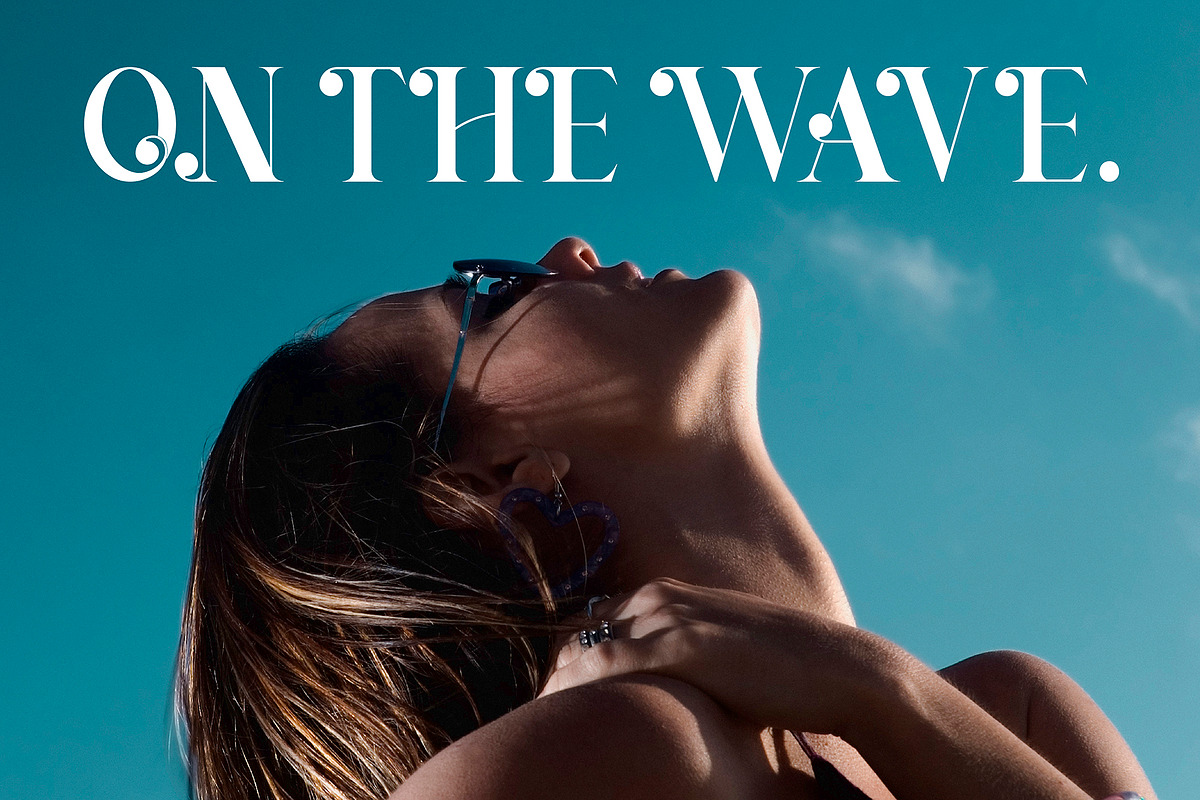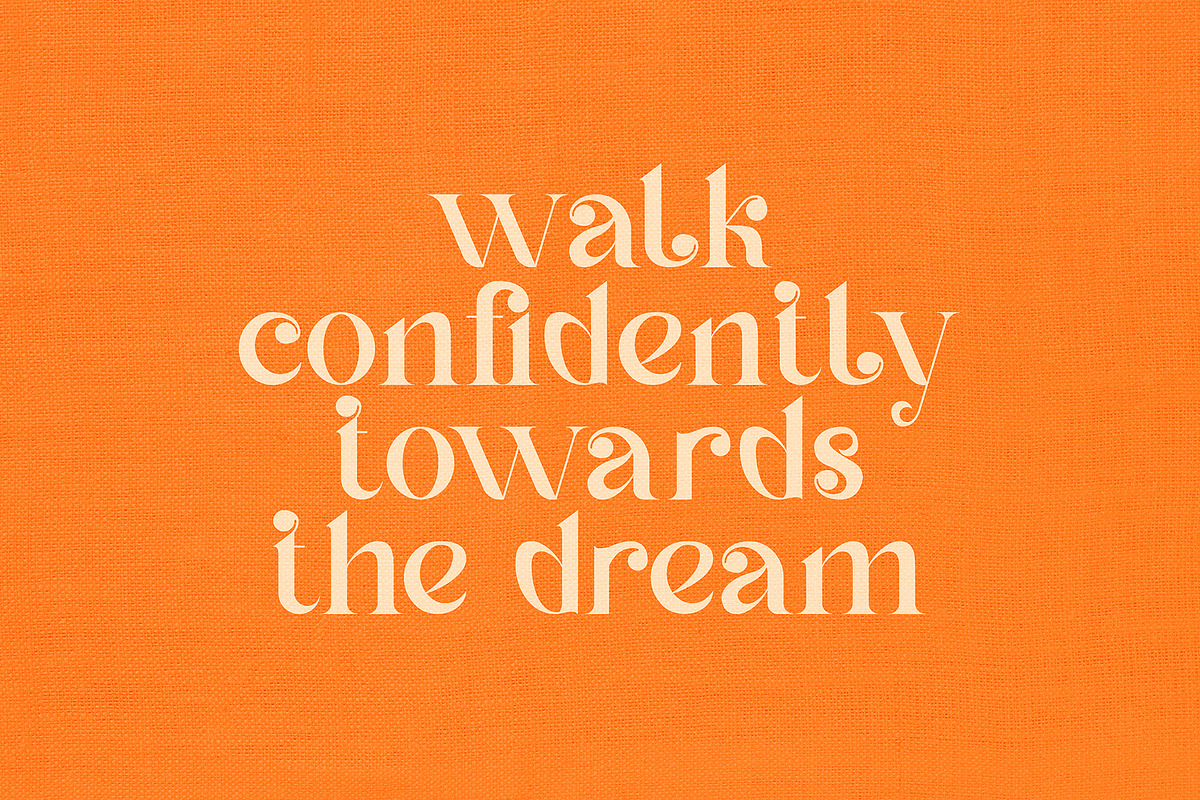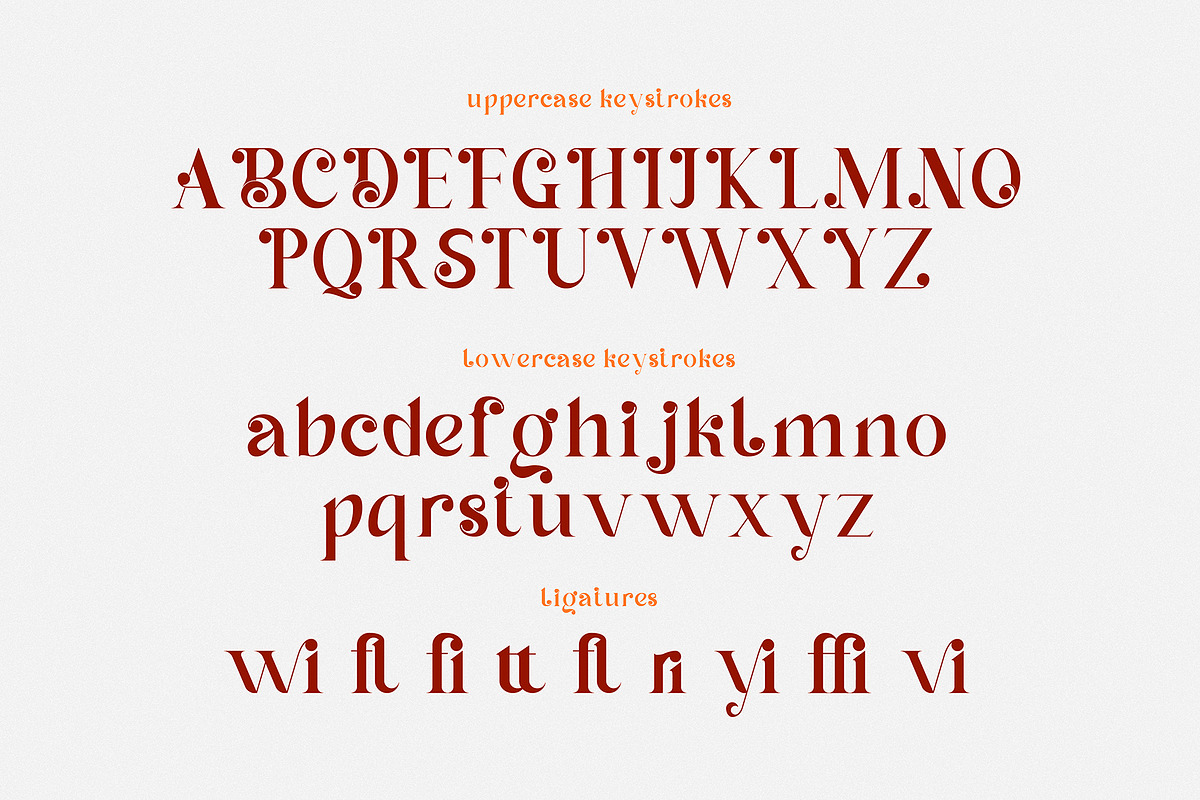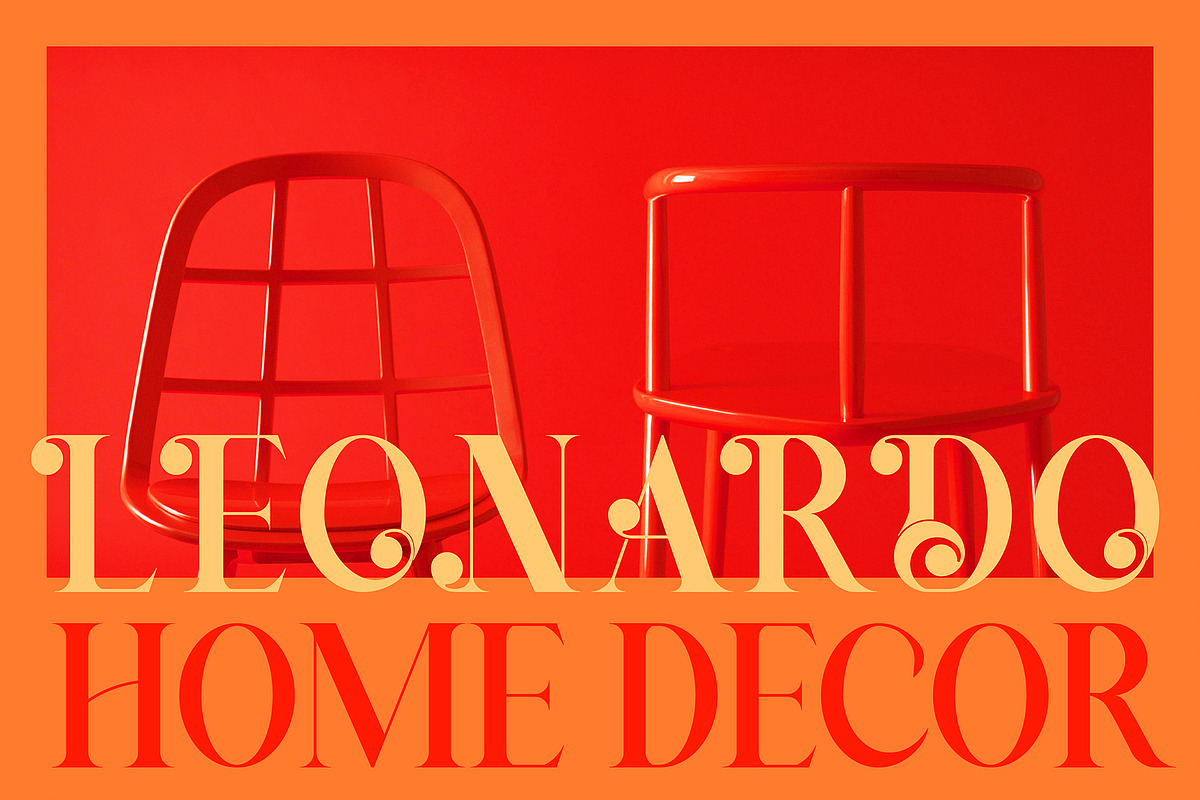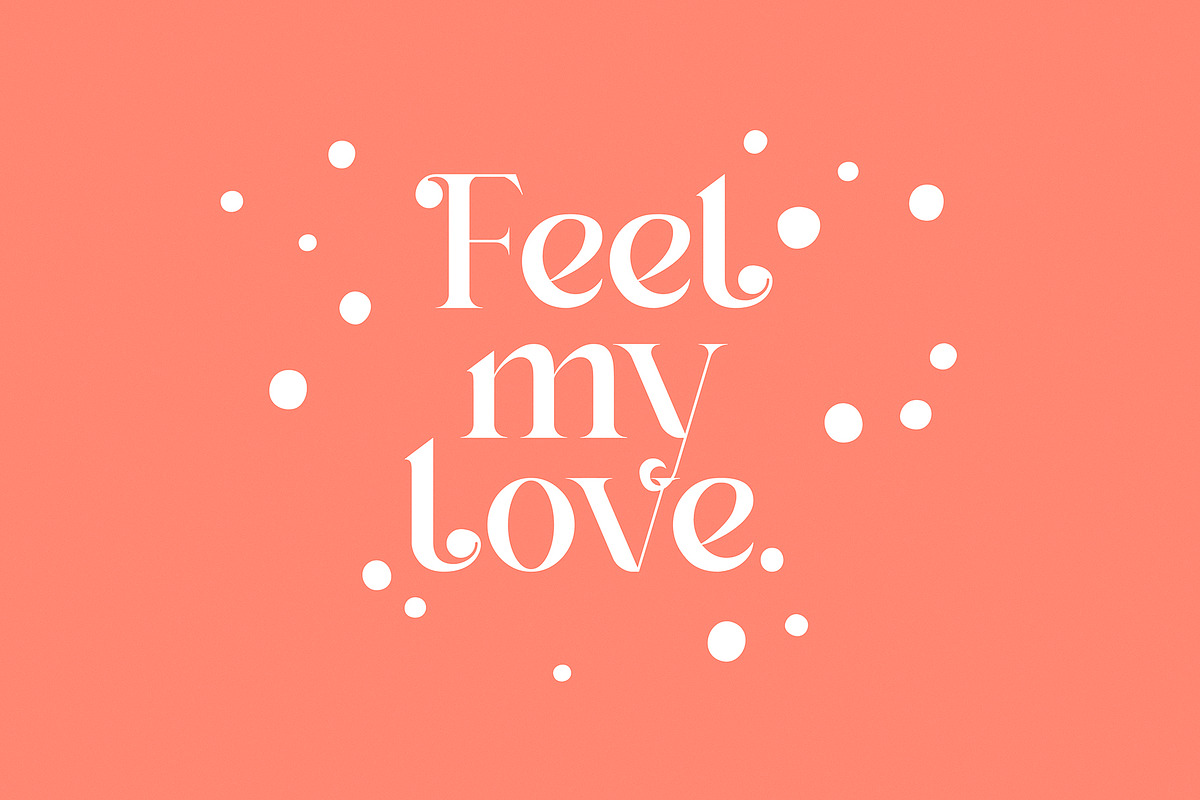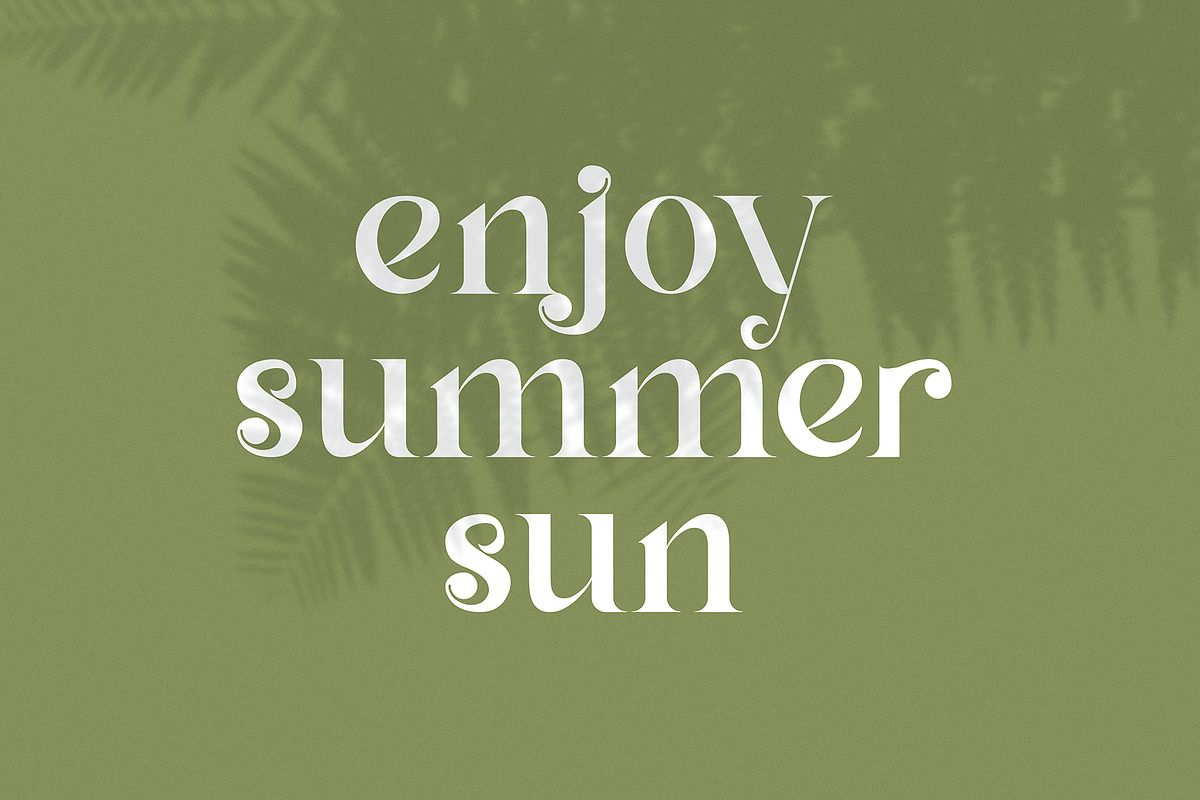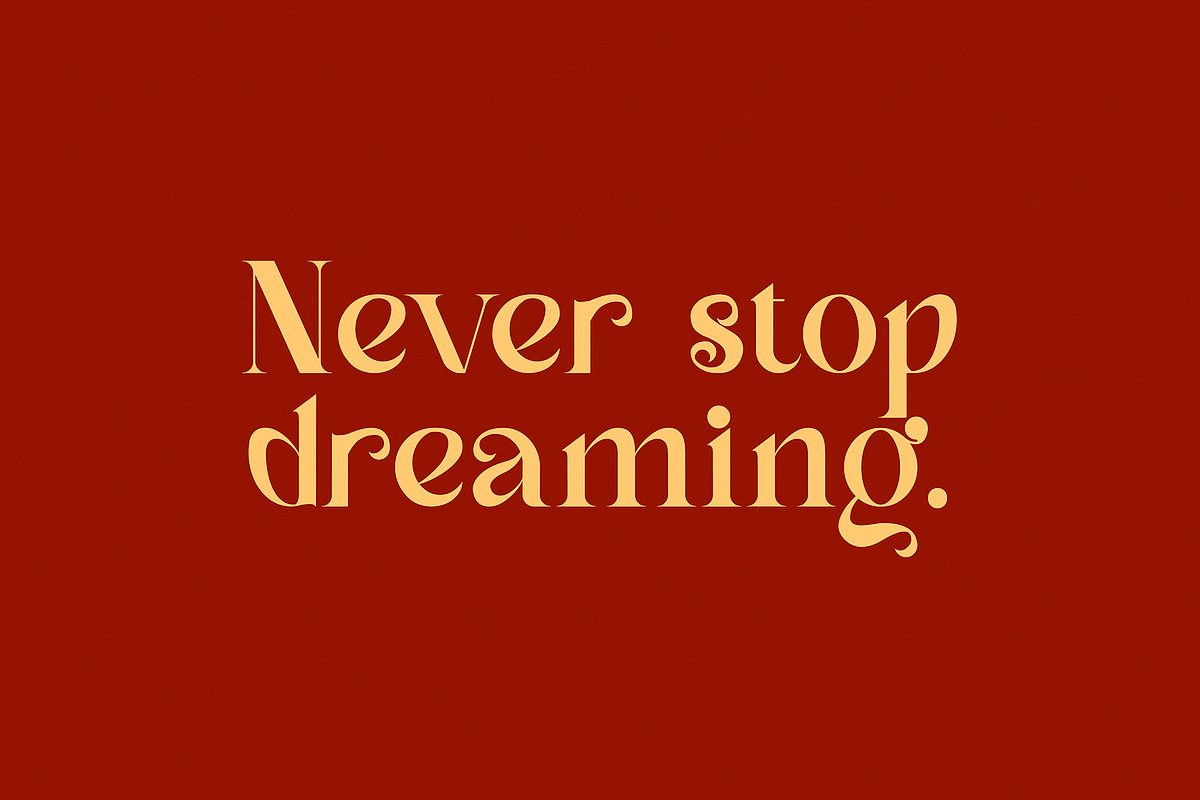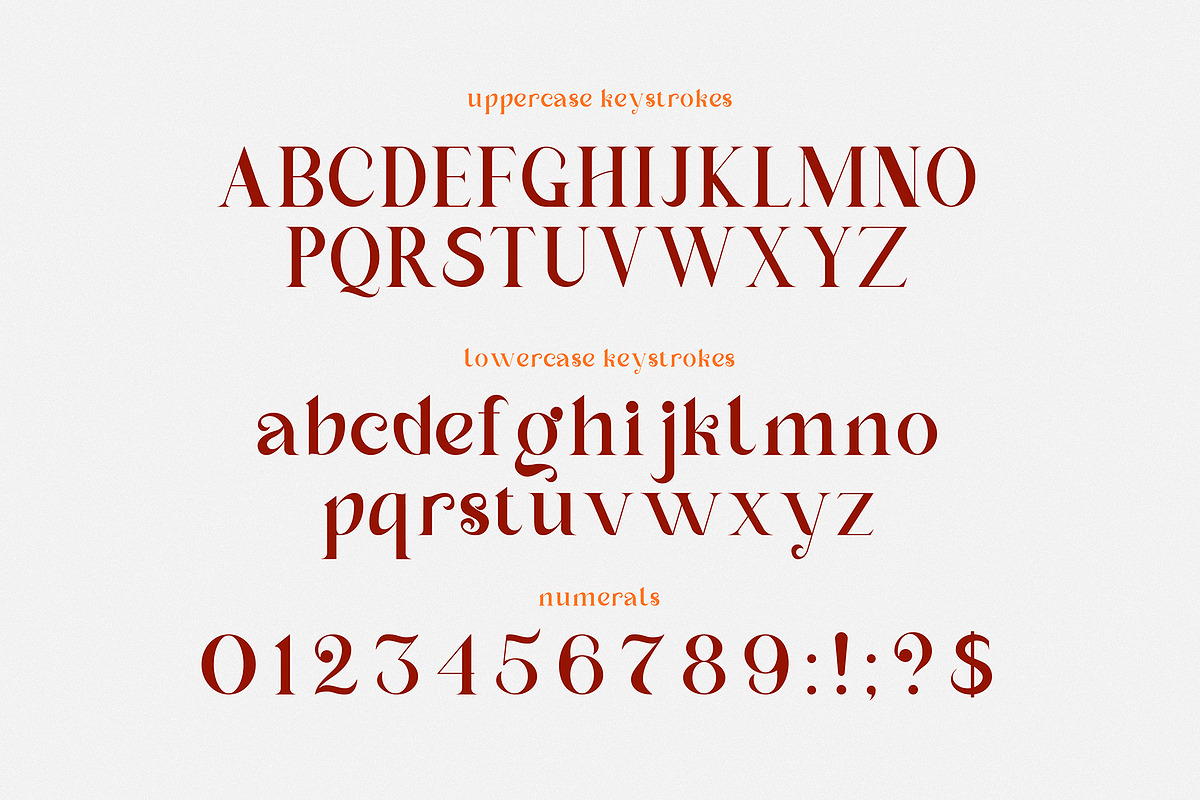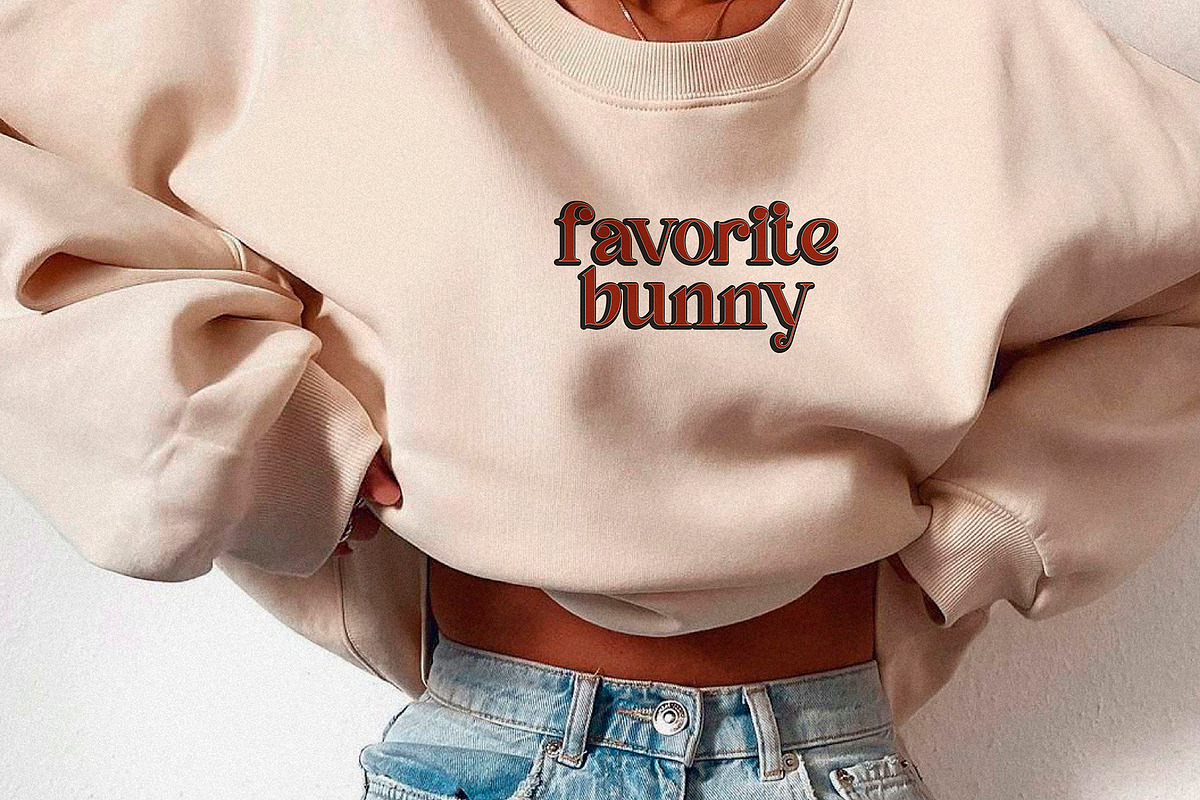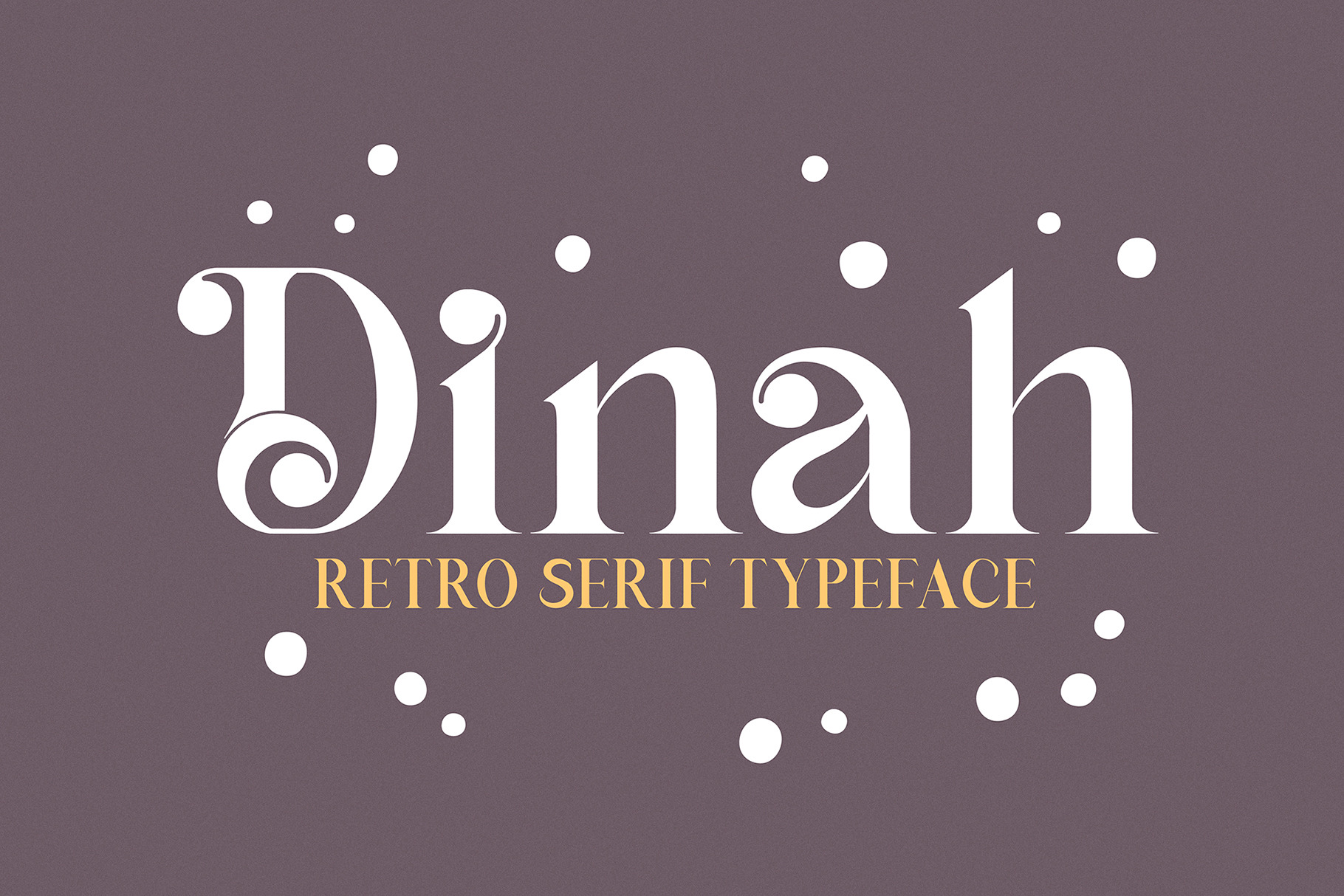
Dinah Glamour / Regular Font
I present to you the font "Dinah" - an elegant "two-faced" serif with both modern and vintage curves, which creates an incredible vintage aesthetic. Use this serif font to add that special retro touch to any design idea you can come up with!
This font is able to take your every creative idea to a high level, providing you with many fascinating custom text compositions! Because of its split personality, Dinah is a very versatile font, covering a wide range of project types, from bold images in magazines to wedding invitations, branding, poster design and more.
A-Z; a-z character set;
ligatures
numbers and punctuation marks, symbols
A font containing uppercase and lowercase letters, numbers, and a wide range of punctuation marks.